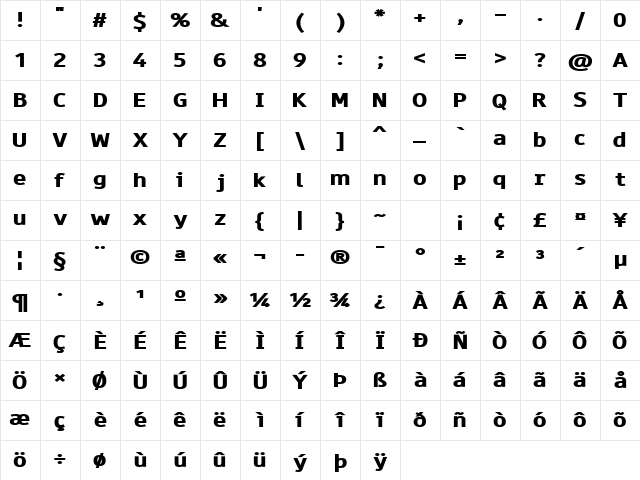
Paneuropa Freeway Regular Free Font
Paneuropa Freeway Regular
Foundry: Peter Wiegel
Designer: Peter Wiegel
Design Context for Paneuropa Freeway
Paneuropa Freeway is a composed and adaptable typeface that performs quietly and consistently across a wide range of design contexts.
Who designed the Paneuropa Freeway Regular font?